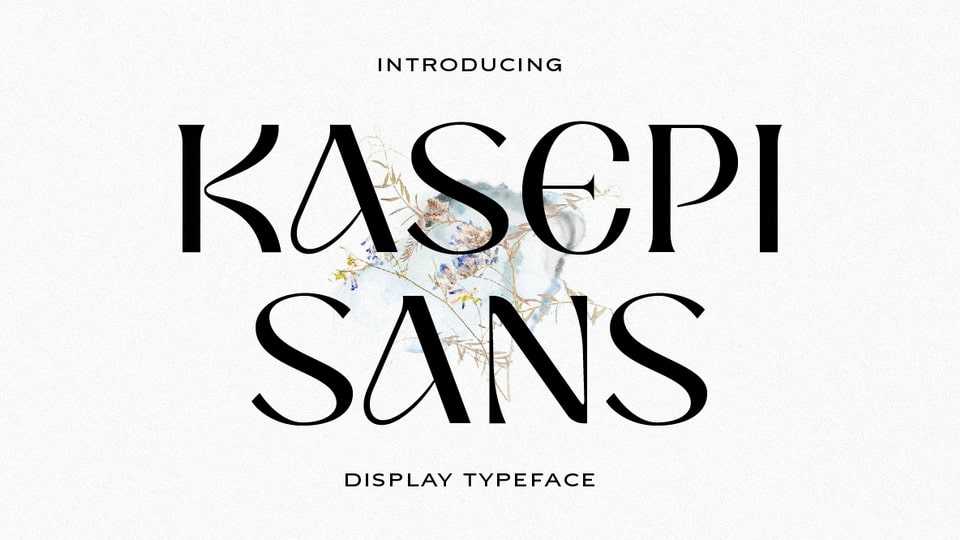
Download Kasepi Sans font, a typeface that combines a modern style with a classic touch. Kasepi Sans font gives off an attractive and classy impression.
Designer: Yukita Creative